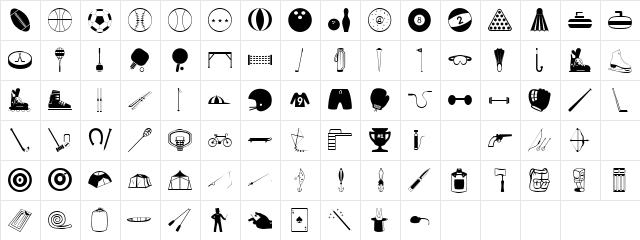
88 Regular Font Preview
88 Regular
Design Context for 88 Typeface
88 is a composed and adaptable typeface that performs quietly and consistently across a wide range of design contexts.